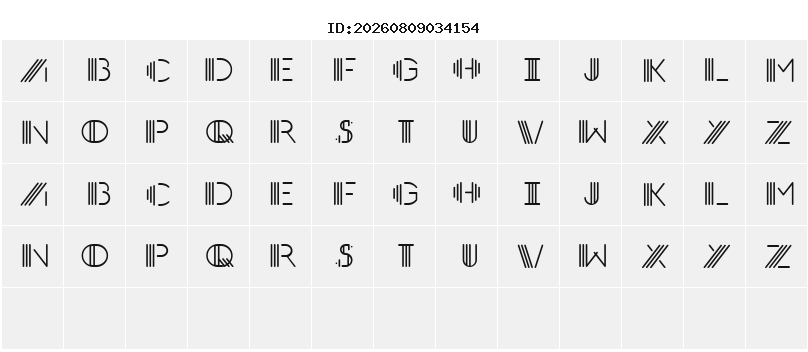
PhotoCab Display Preview
• Font Name: PhotoCab Display
• Full Font Name: PhotoCab Display
About PhotoCab Display.ttf
PhotoCab Display.ttf is a modern, elegant sans-serif font designed for ultimate readability and visual harmony. Perfect for branding, headlines, web design, and print materials.